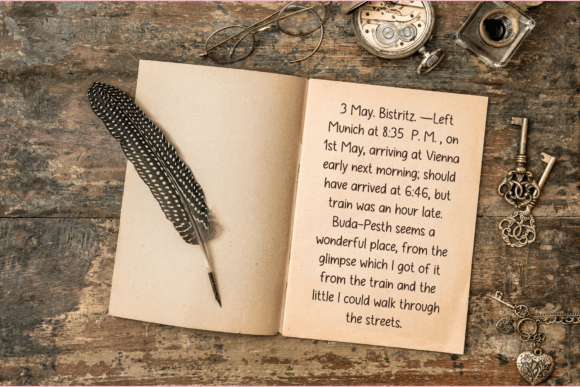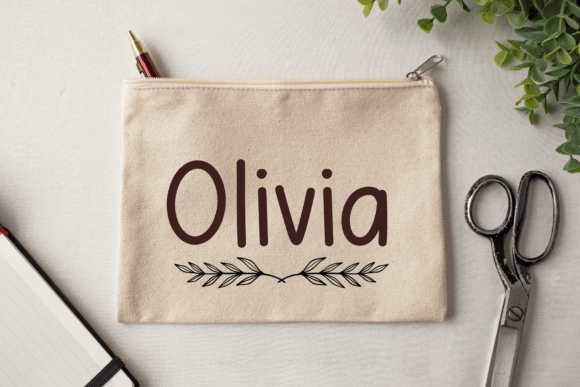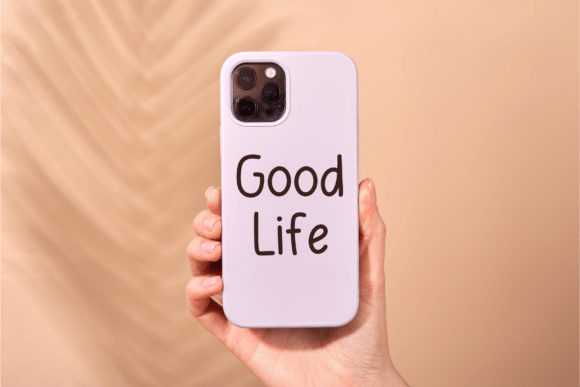
Introduction to Serene Write Font
Serene Write is a handwritten font.
It embodies playfulness and authenticity and is the perfect choice for all your favorite projects, or even for blog posts, logos, branding, ads, invitations, greeting cards, planners, photo albums, decorations, and much more Add it to any of your designs, and enjoy the results.
Why Choose Serene Write Font?